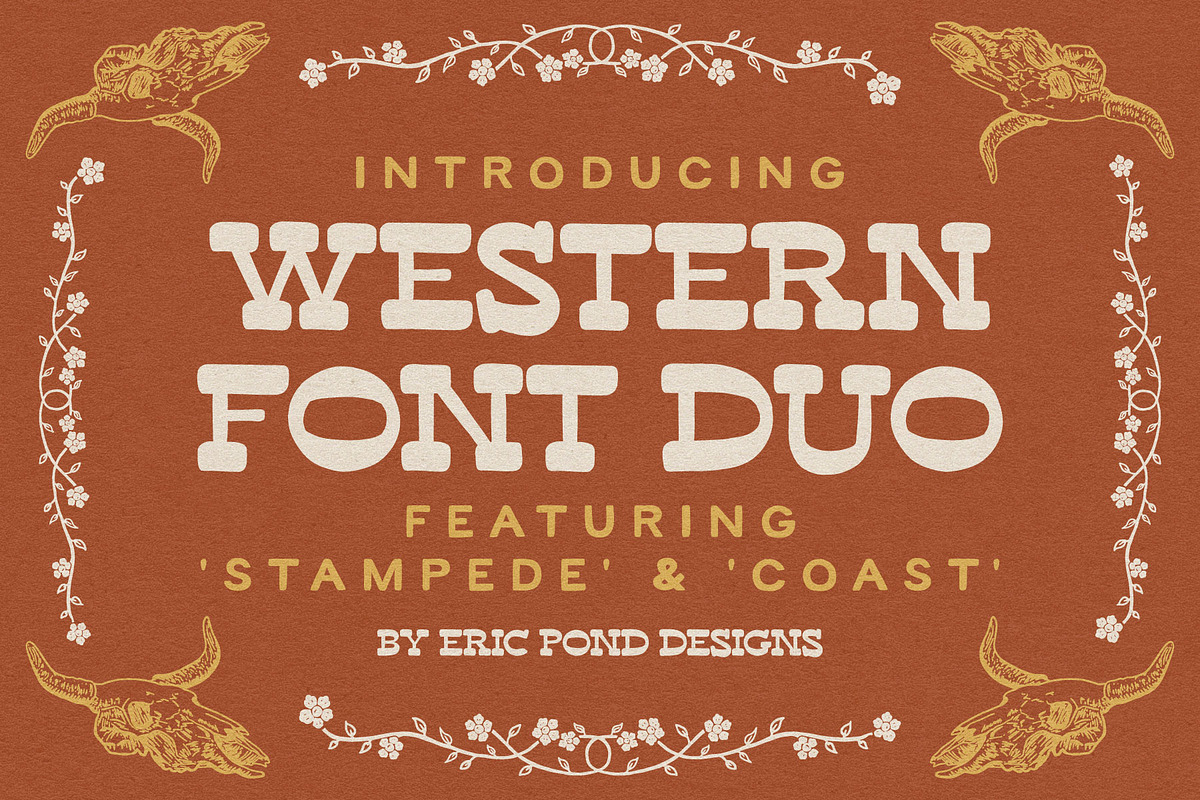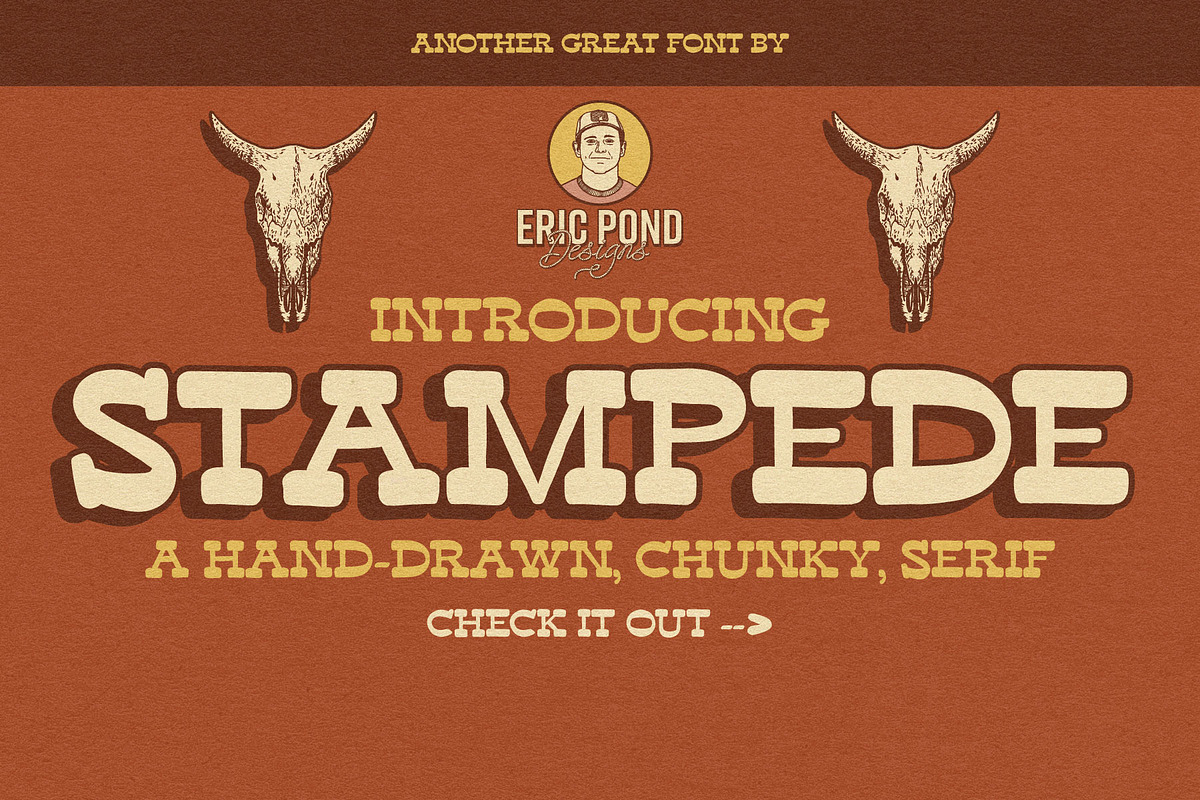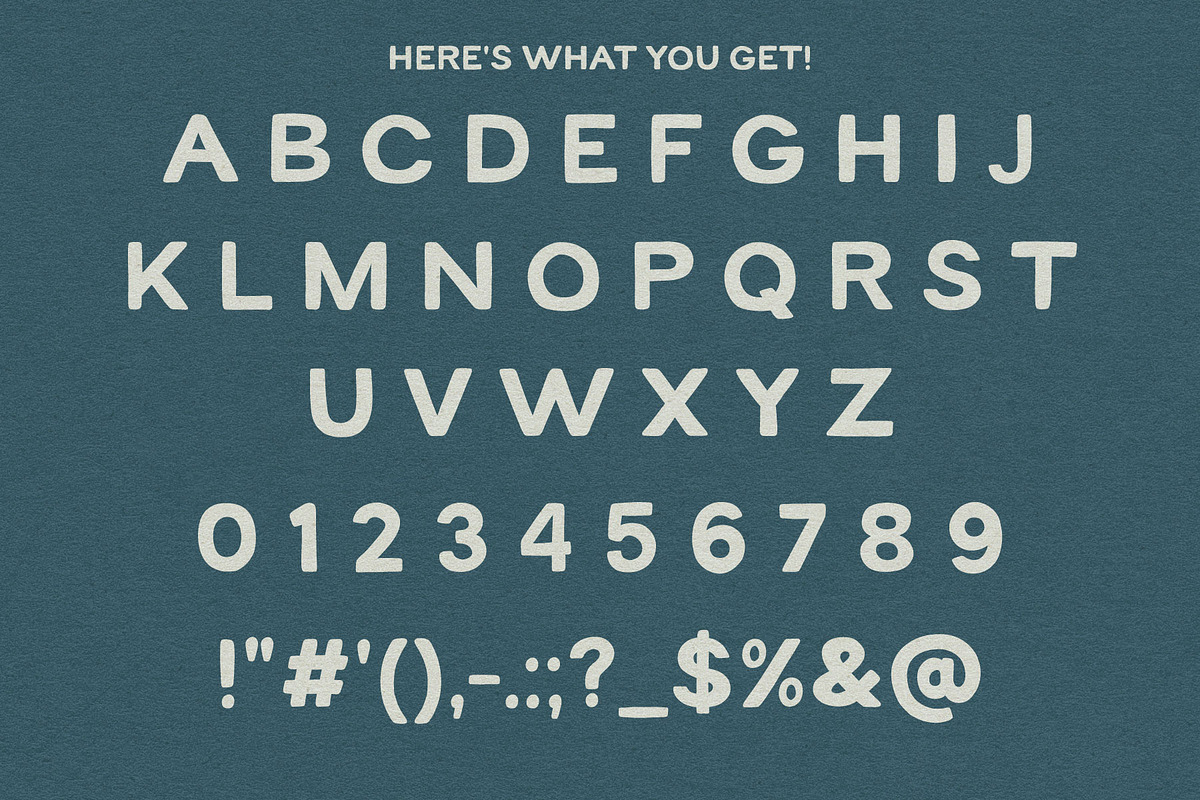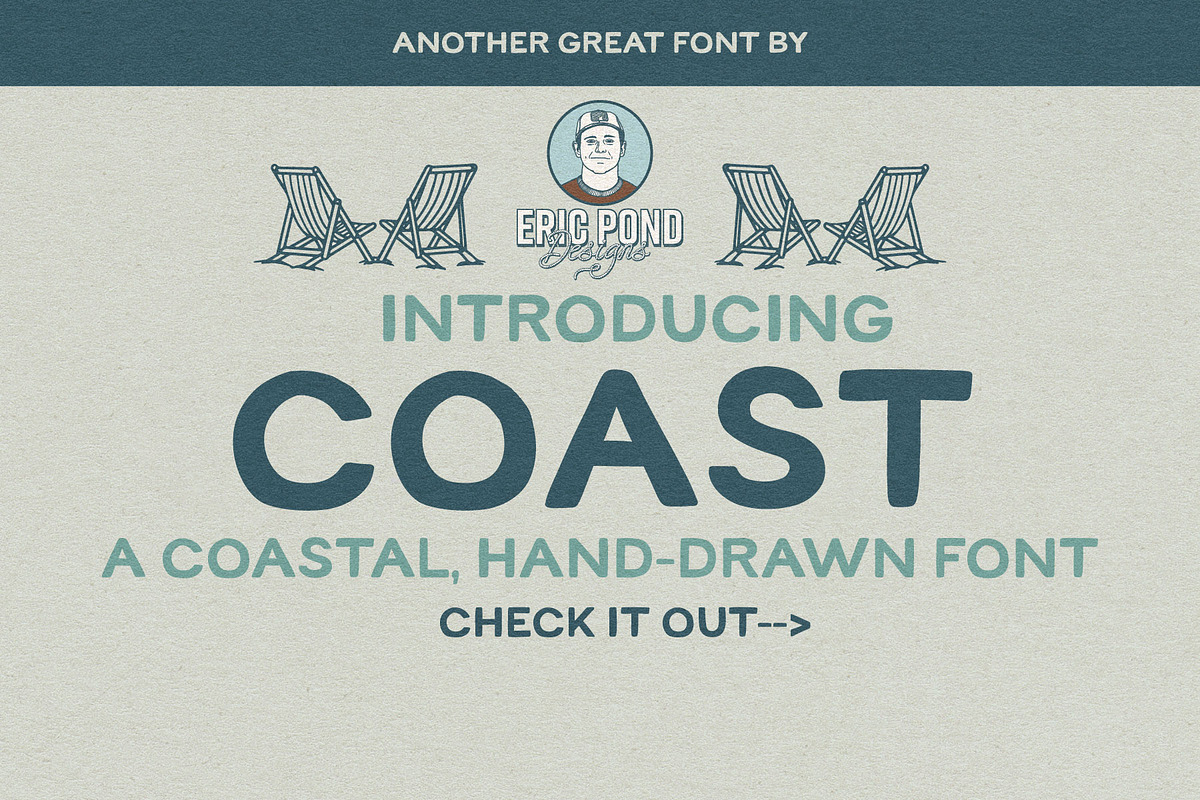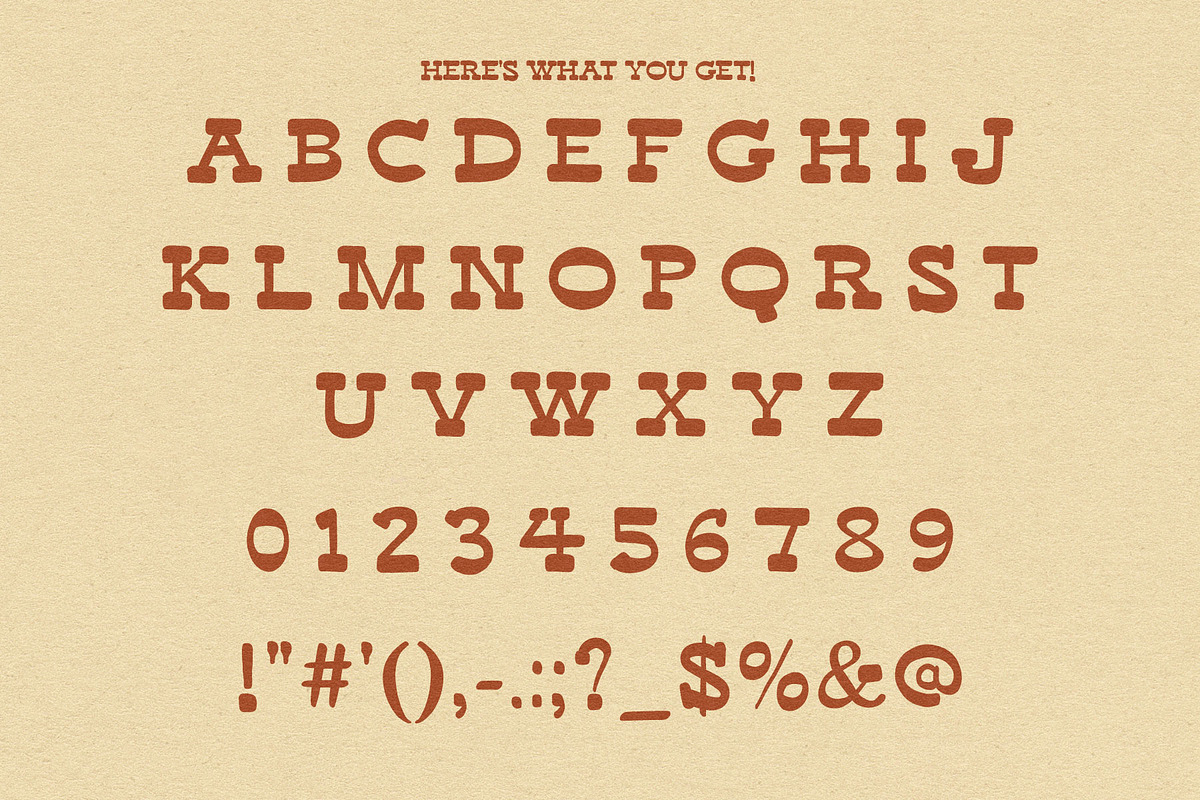
Western Font Duo
Introducing the Western Font Duo by Eric Pond Designs! This bundle features Stampede, a Slab Serif font and Coast, a Handrawn Sans Serif Font. Both fonts feature uppercase characters, numbers and some punctuation!